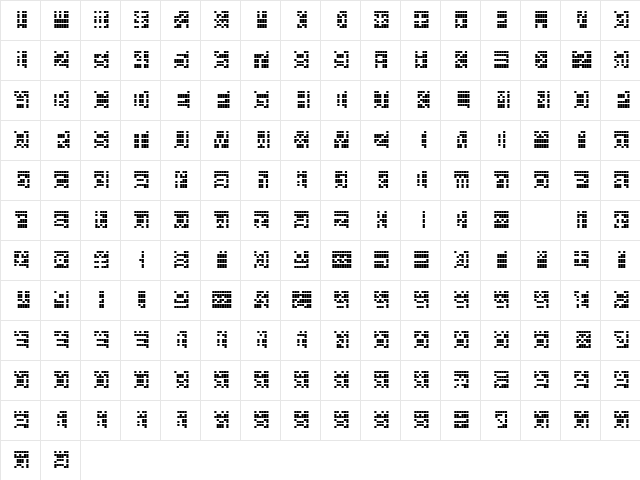
Automation Grid Regular
Complete Automation Grid Regular glyph index. Displaying only characters natively supported by Automation Grid Regular font.
Design Context for Automation Grid
Automation Grid is a composed and adaptable typeface that performs quietly and consistently across a wide range of design contexts.